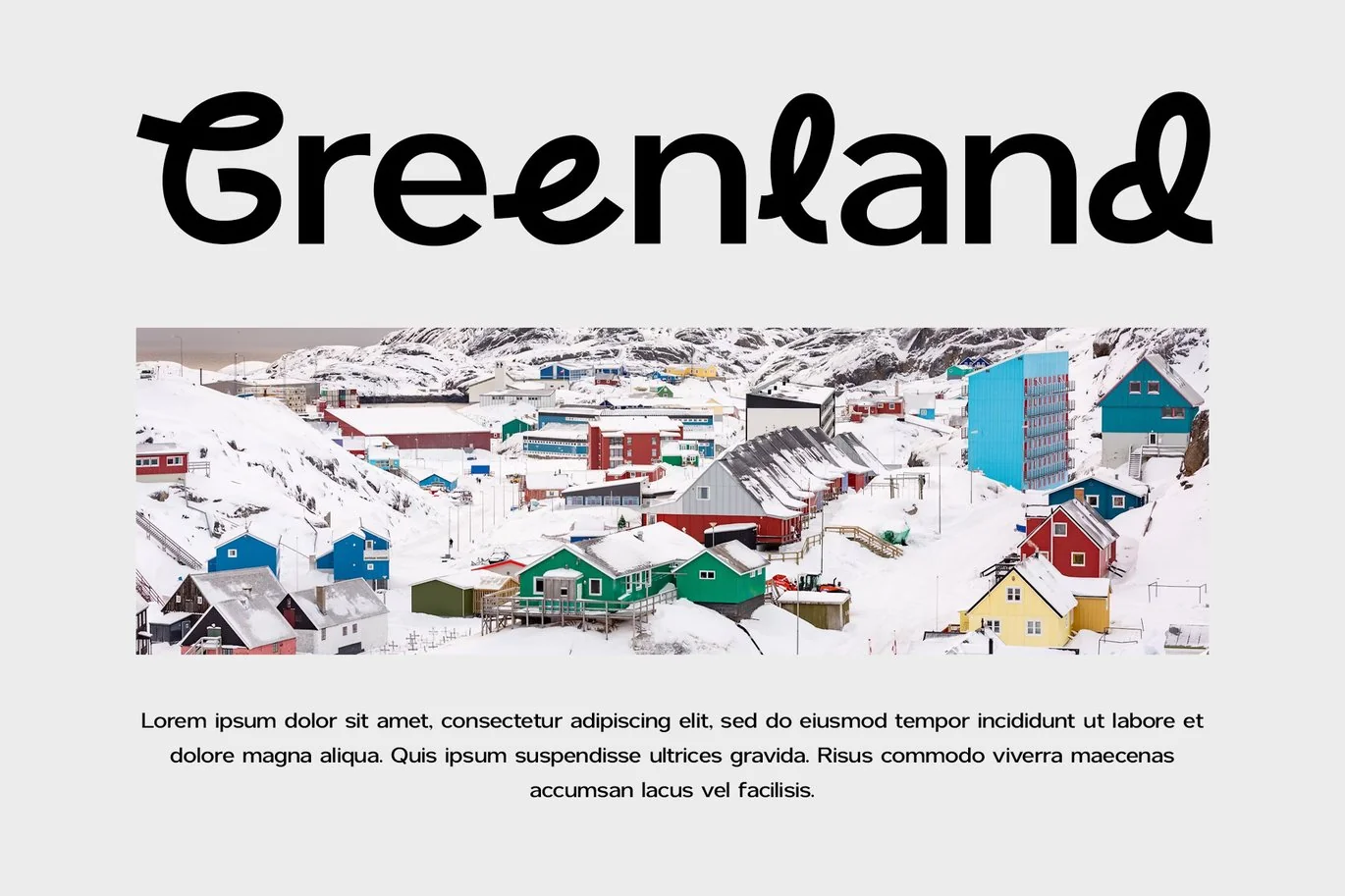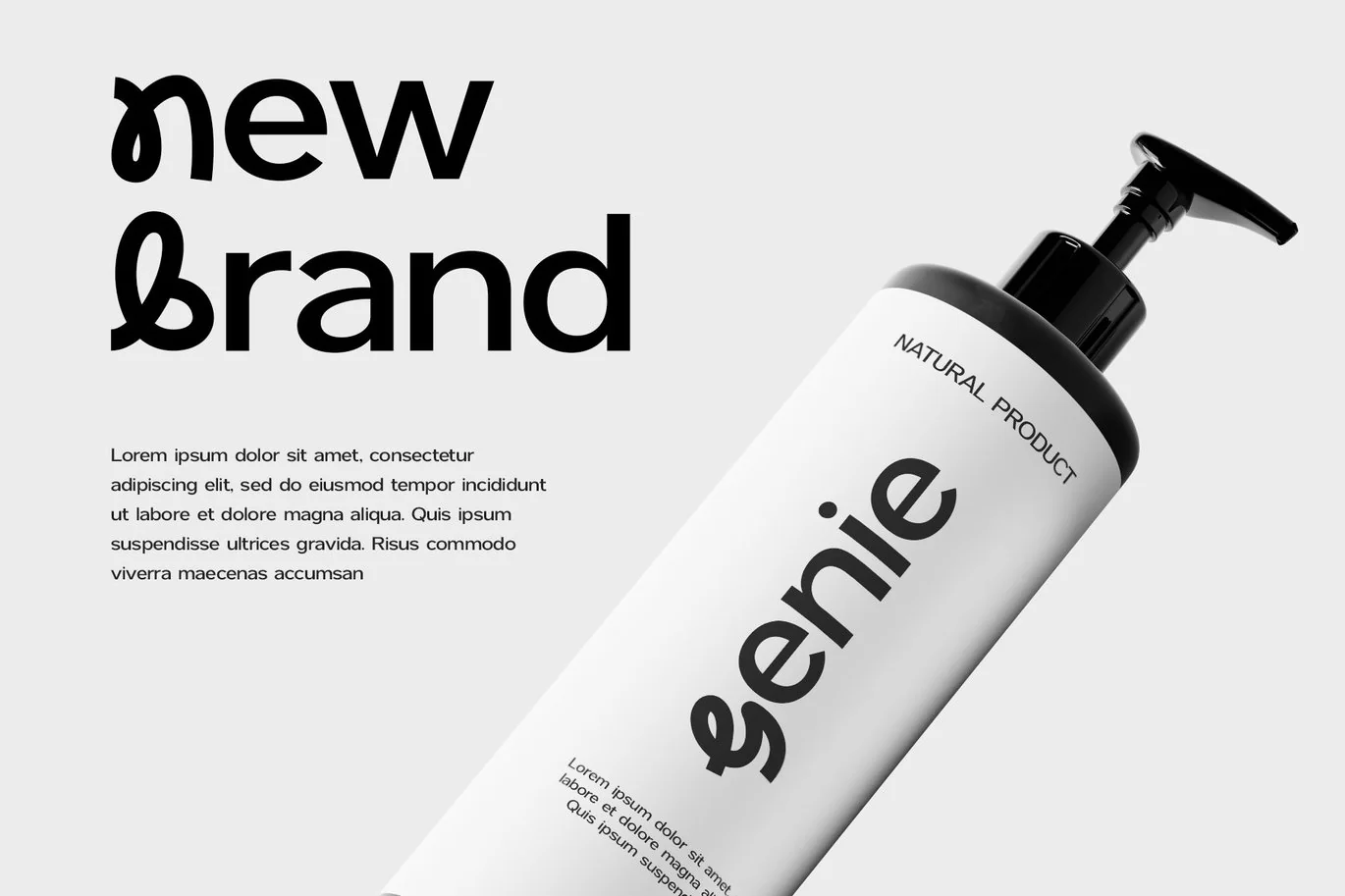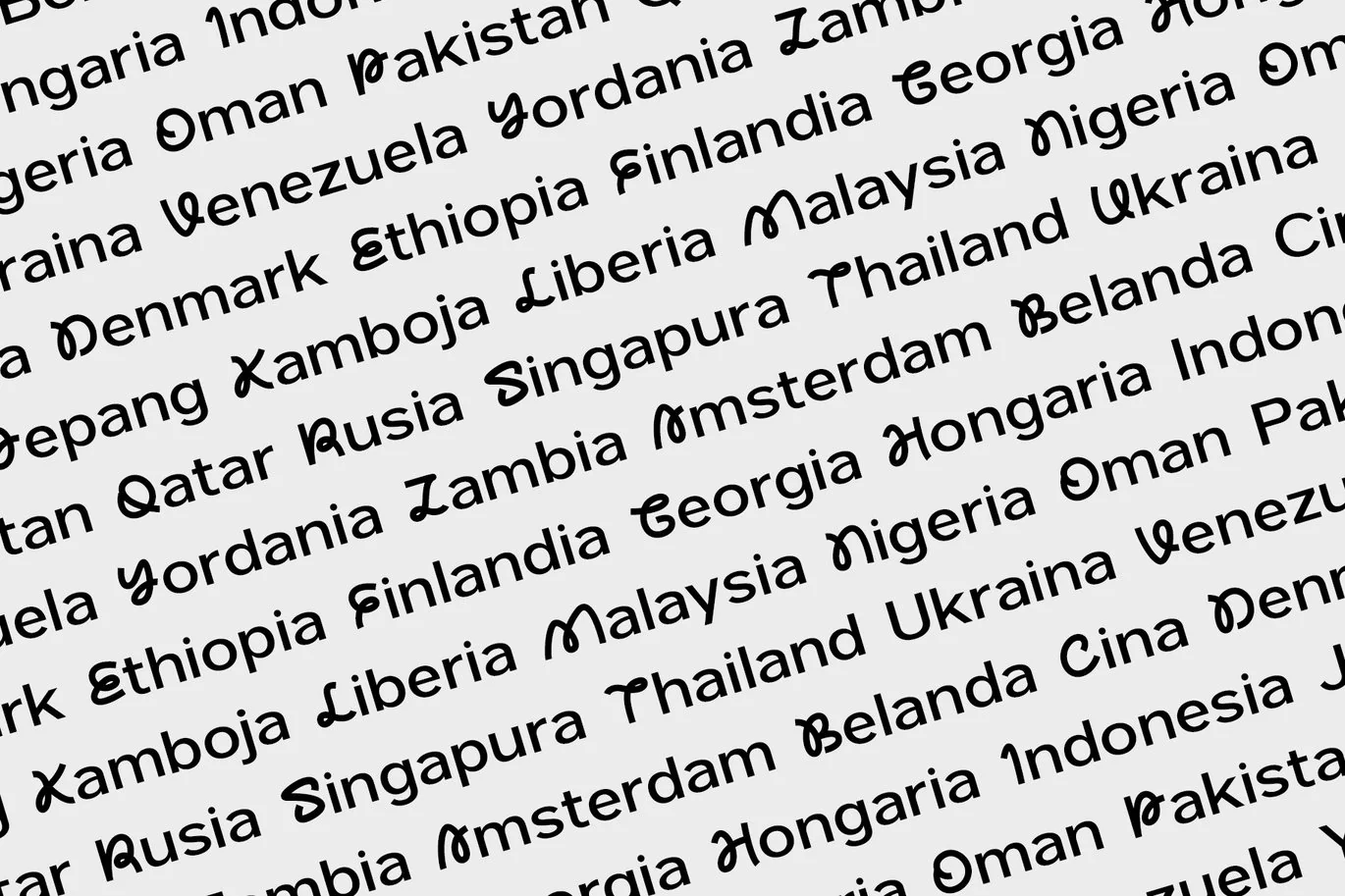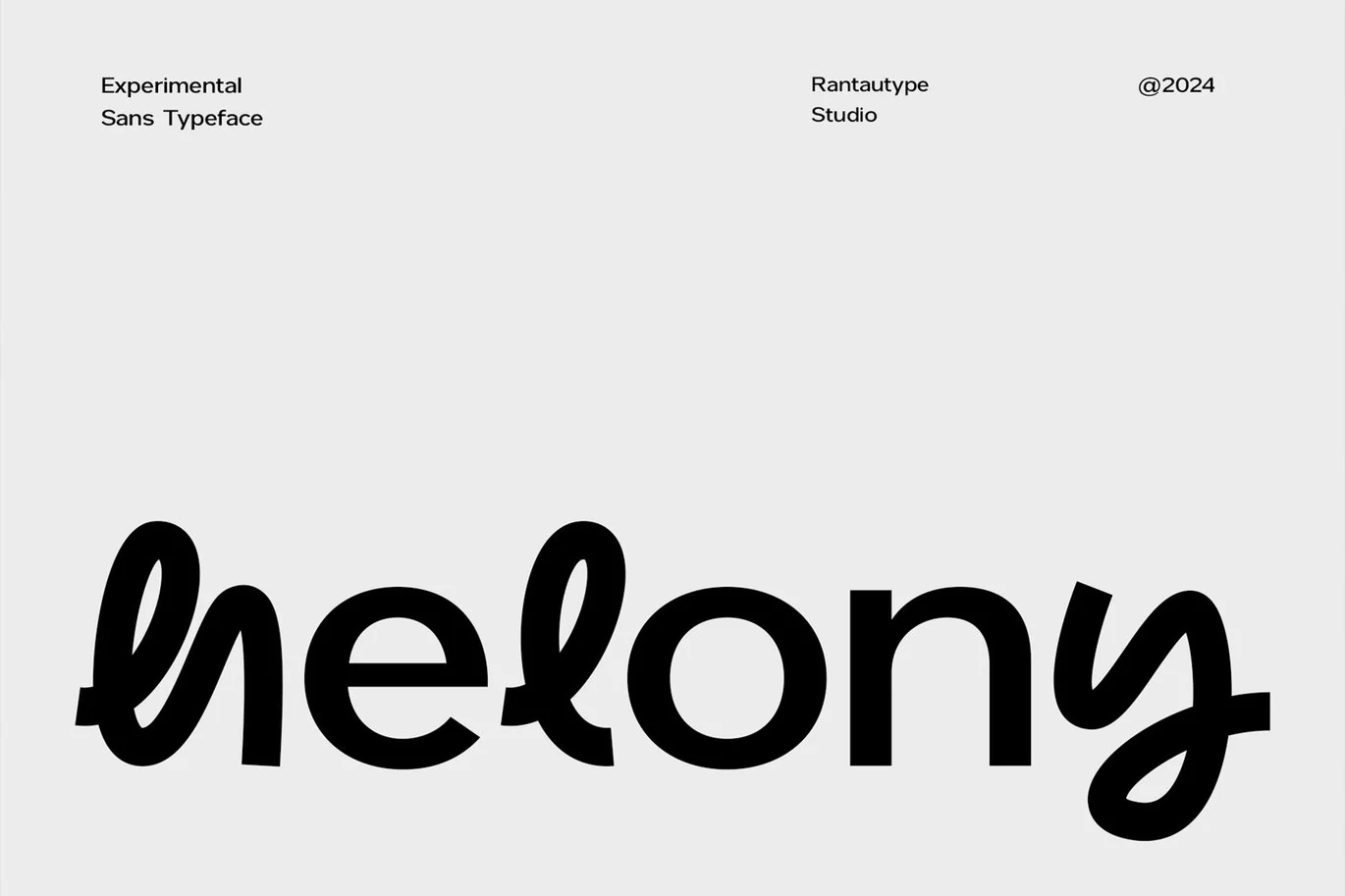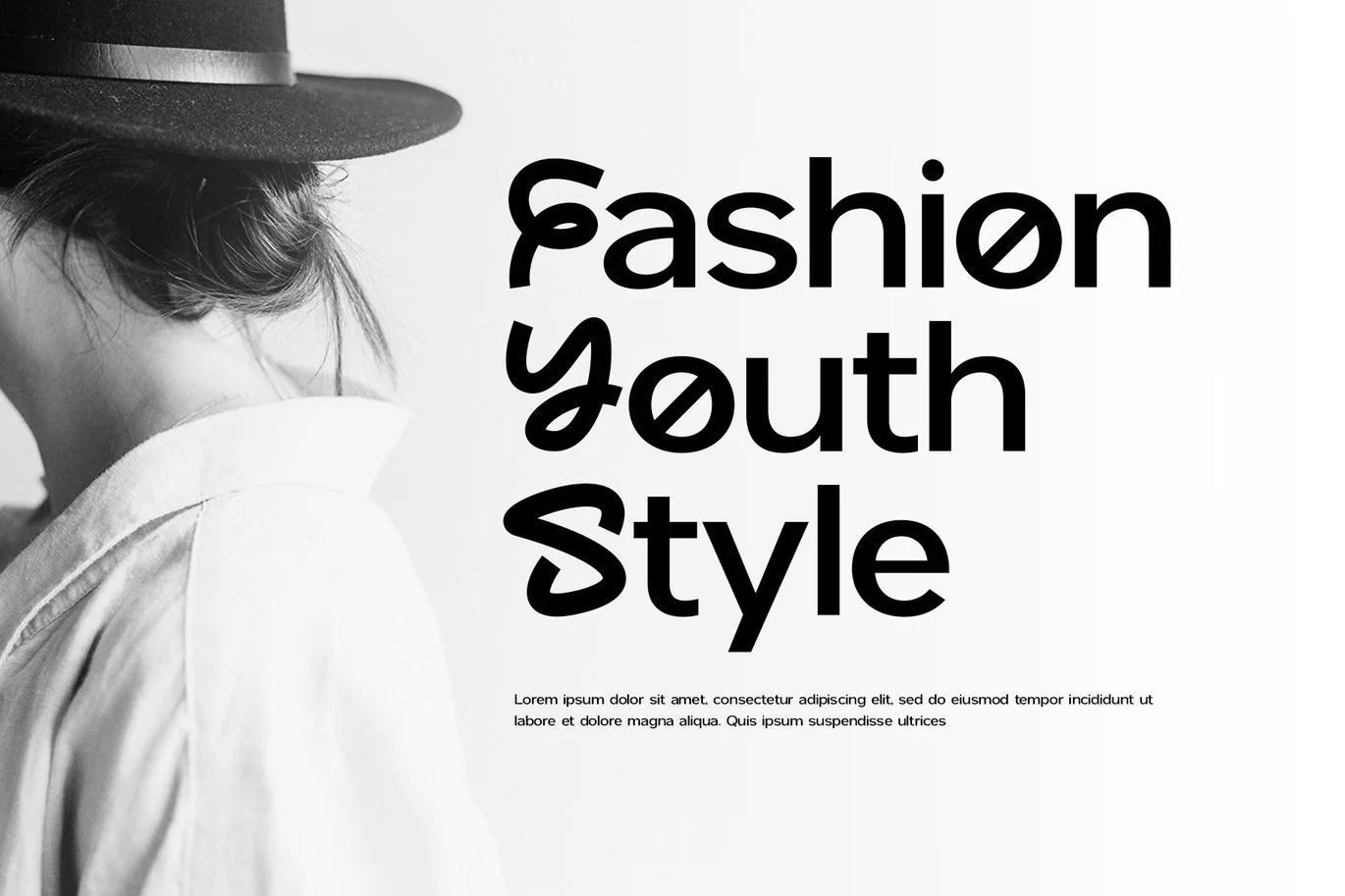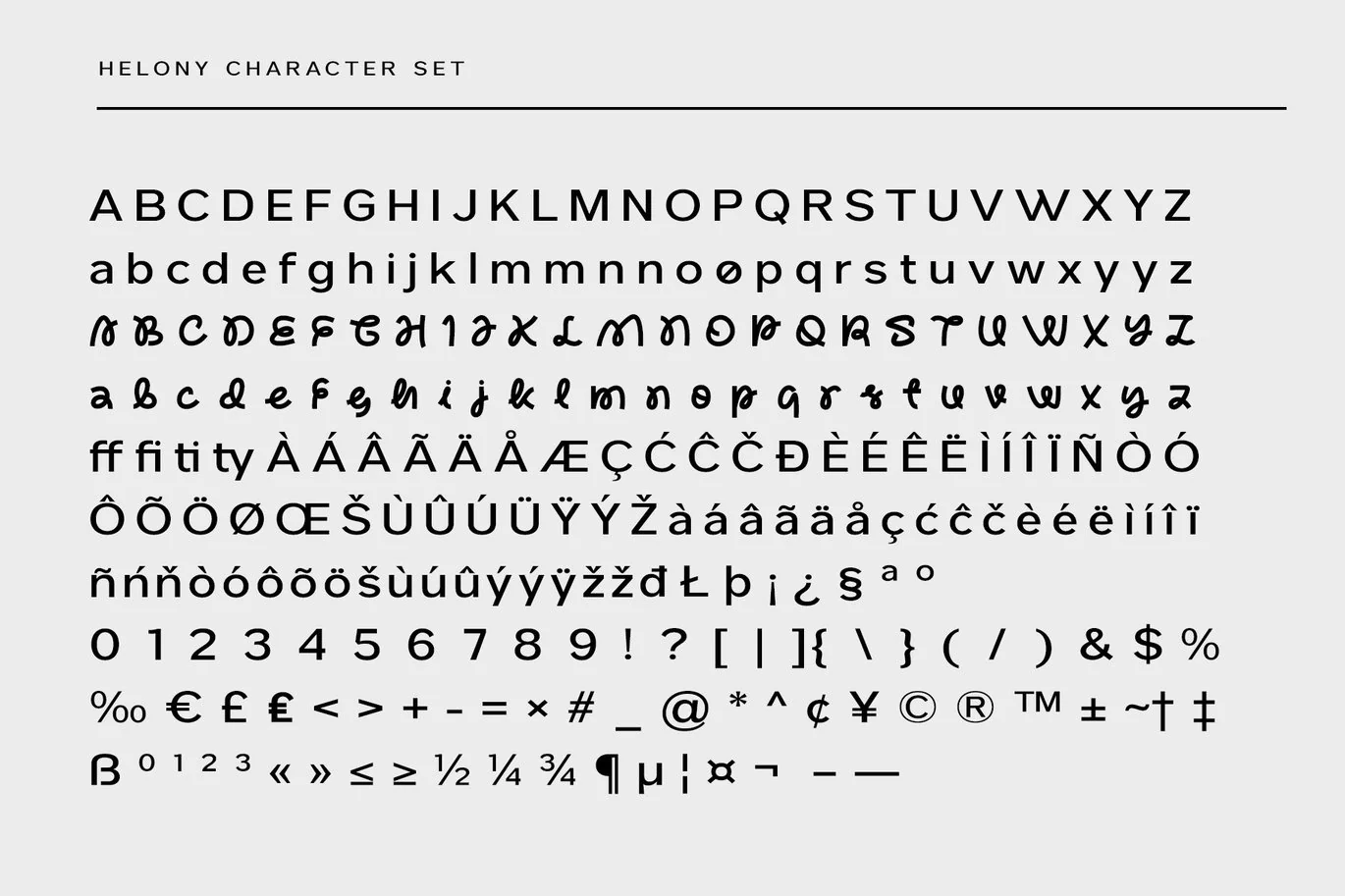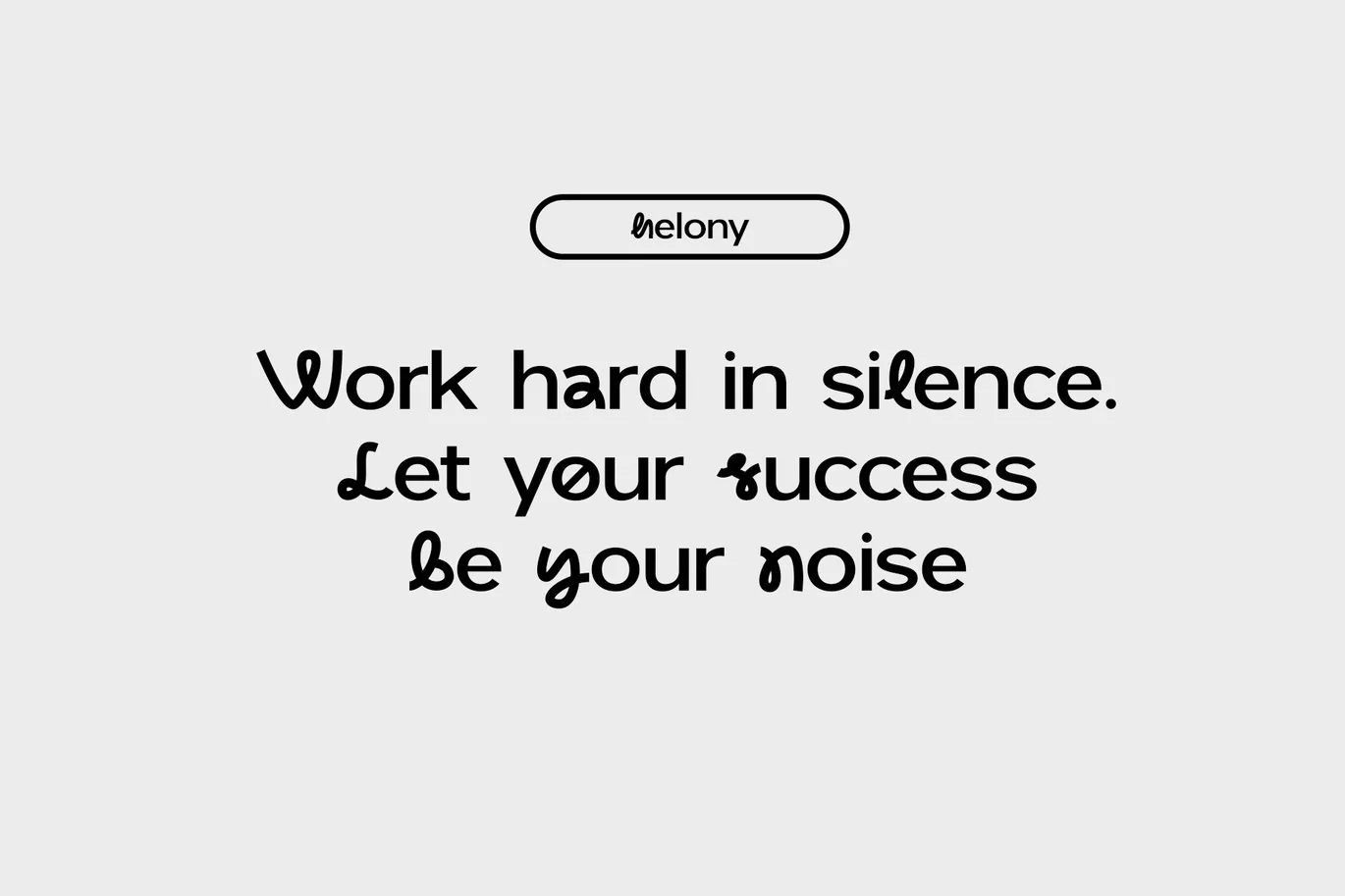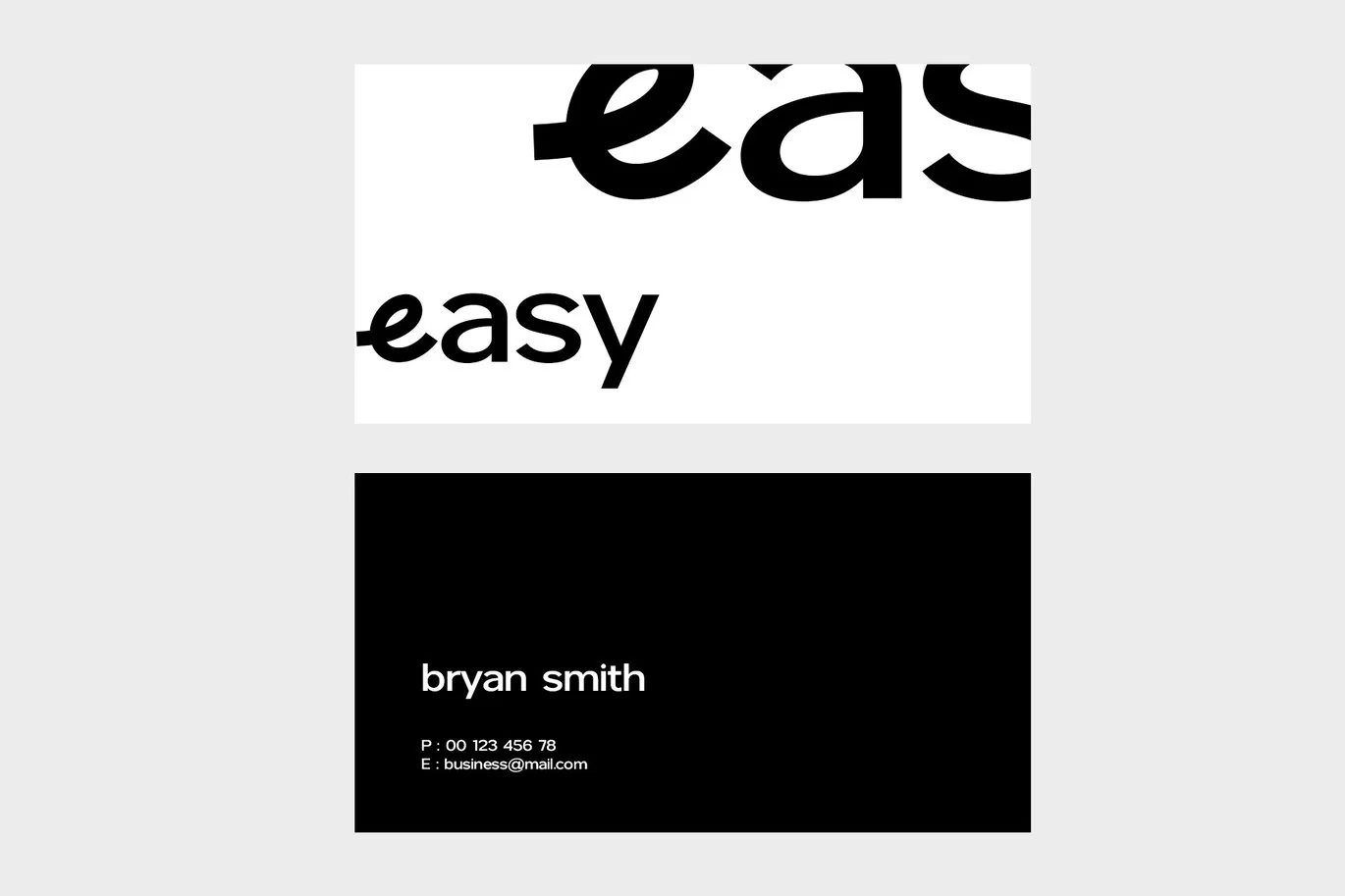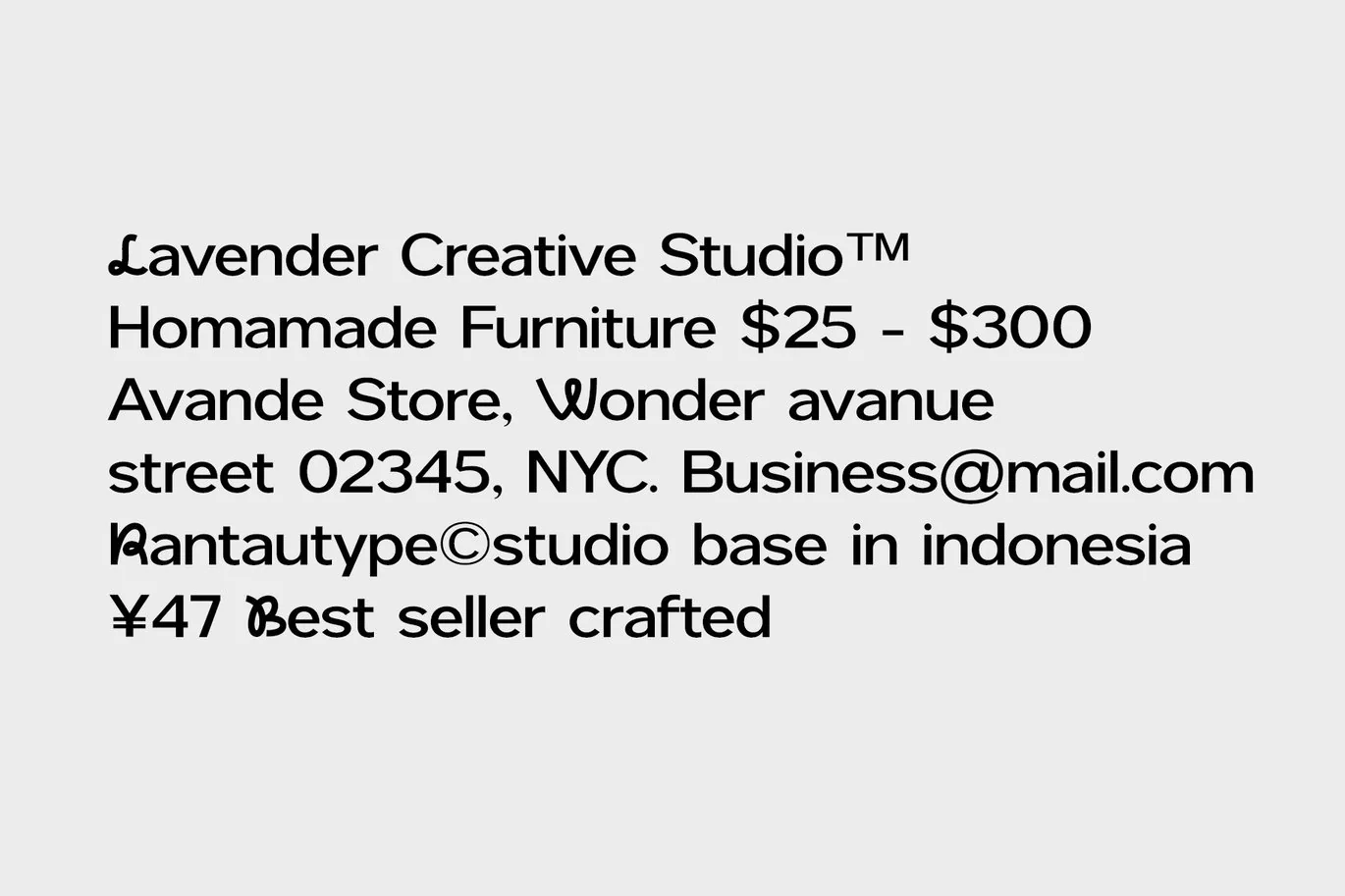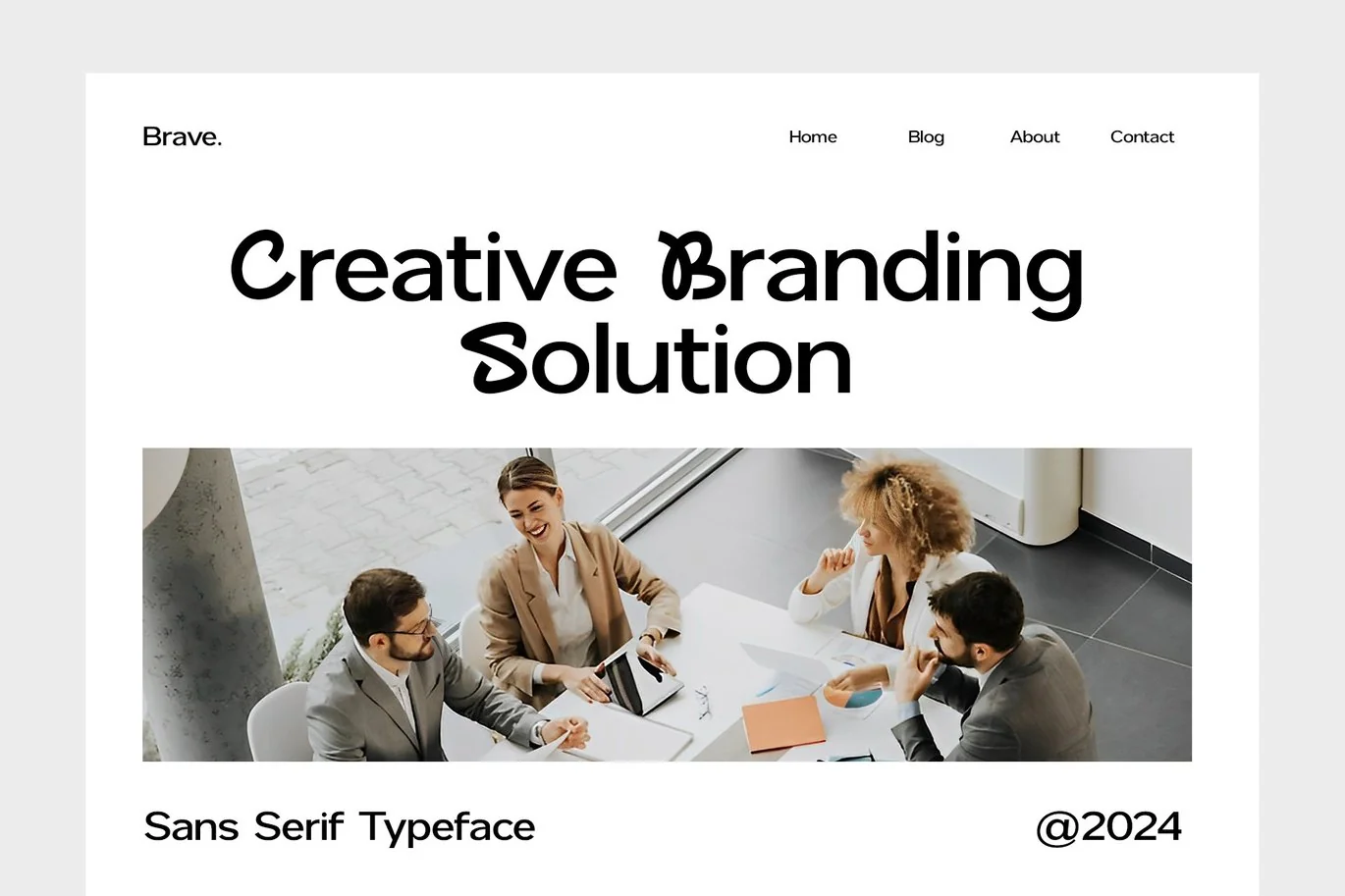
Helony Experimental Unique Sans Font
Helony is a experimental unique font with stylish curve and modern visual design. Helony come to help your project design make more stunning and attractive.
Helony is a perfectly choice for any creative endeavor, chic, lifestyle design such as logos, advertisements, watermark on photography, stationery, branding project, display and magazine, invitation, corporate brand, product design, label, business project and many other project with elegant touch.
Fonts include Multilingual Character for: Afrikaans, Albanian, Asu, Basque, Bemba, Bena, Breton, Chiga, Cornish, Dutch, English, Estonian, Filipino, Finnish, Friulian, Galician, Gusii, Indonesian, Irish, Italian, Kabuverdianu, Kalenjin, Kinyarwanda, Luo, Luxembourgish, Luyia, Machame, Makhuwa-Meetto, Makonde, Malagasy, Manx, Morisyen, North, Ndebele, Nyankole, Oromo, Portuguese, Quechua, Romansh, Rombo, Rundi, Rwa, Samburu, Sango, Sangu, Scottish, Gaelic, Sena, Shambala, Shona, Soga, Somali, Spanish, Swahili, Swedish, Swiss, German.